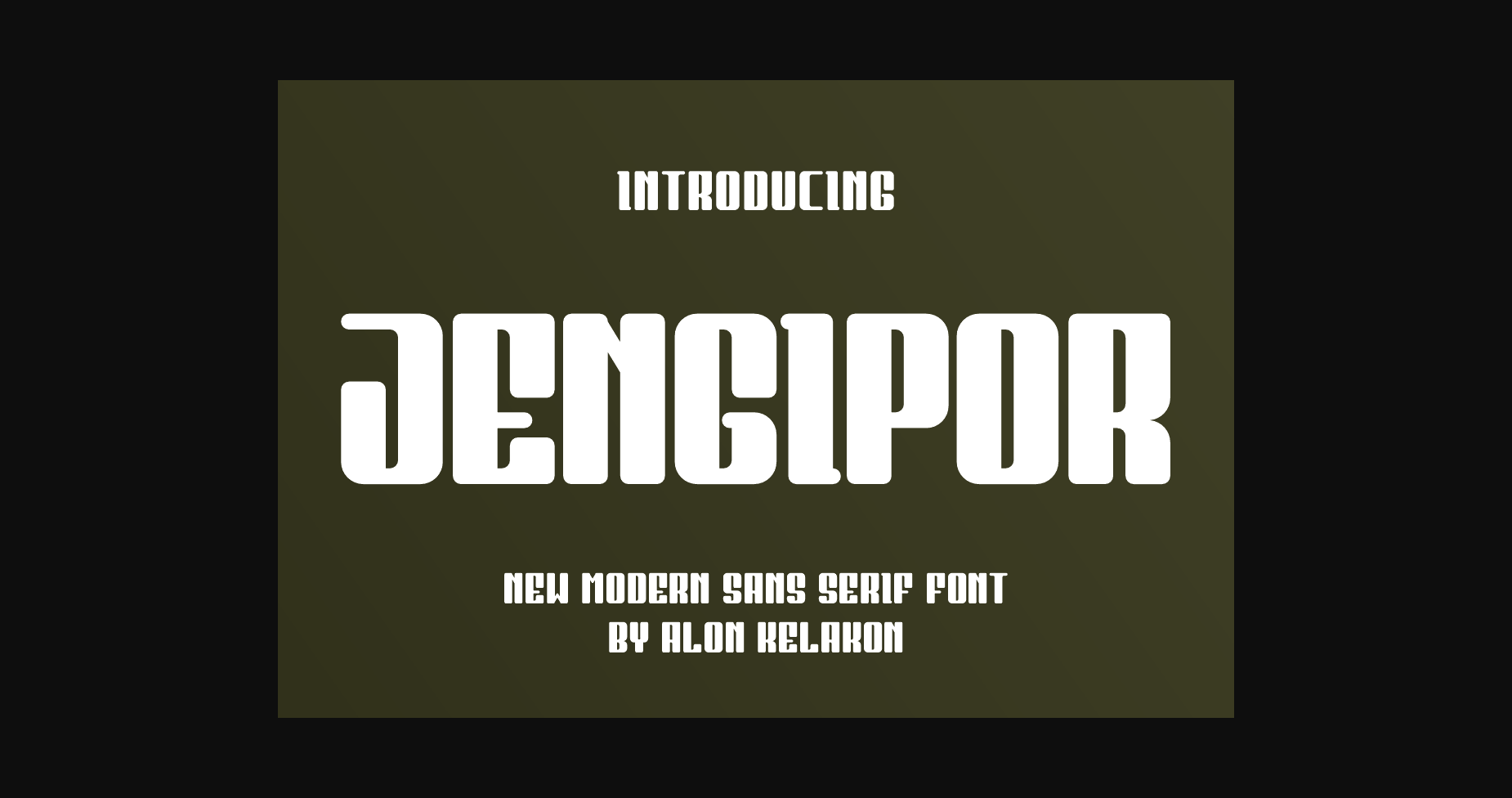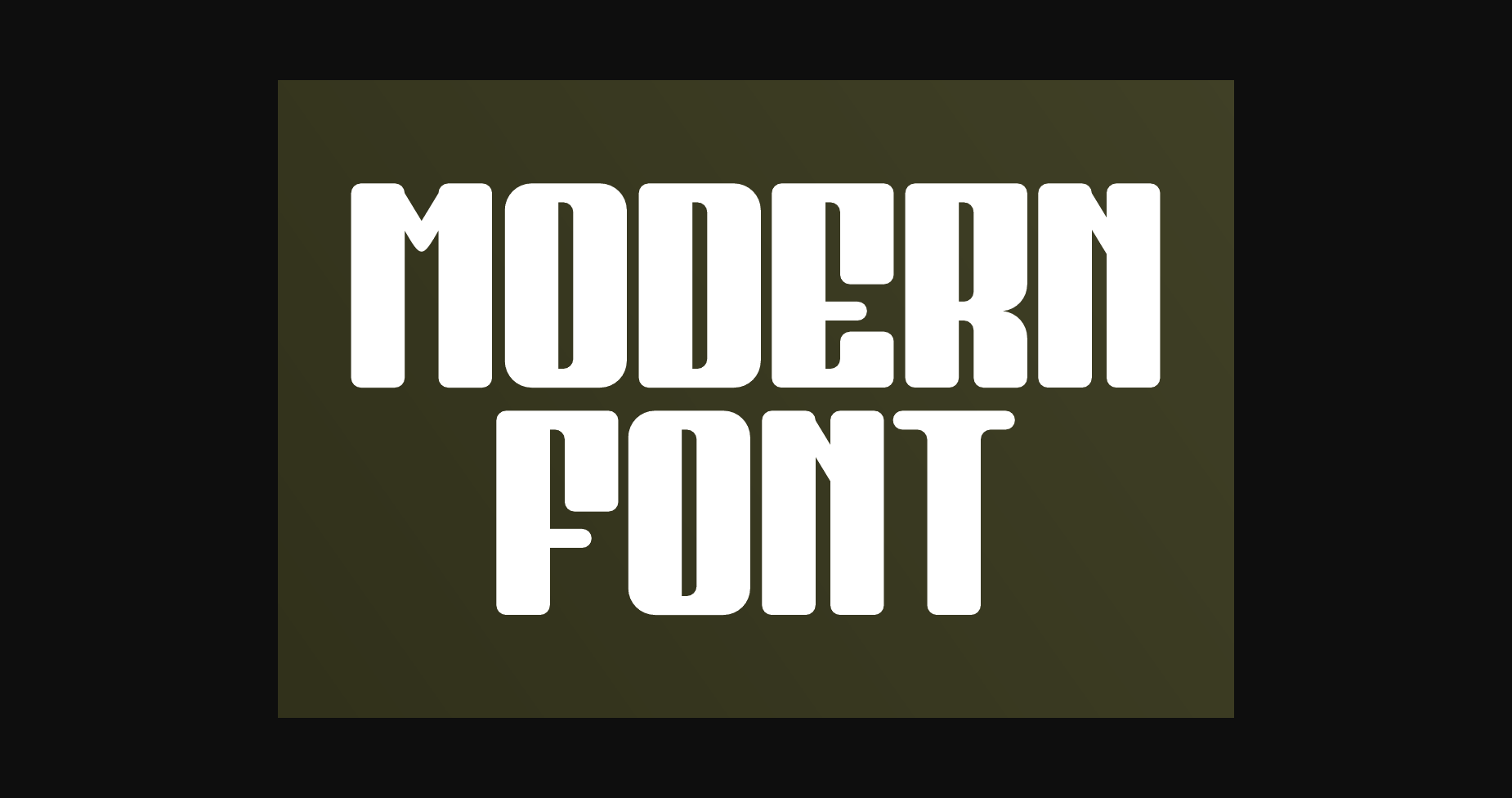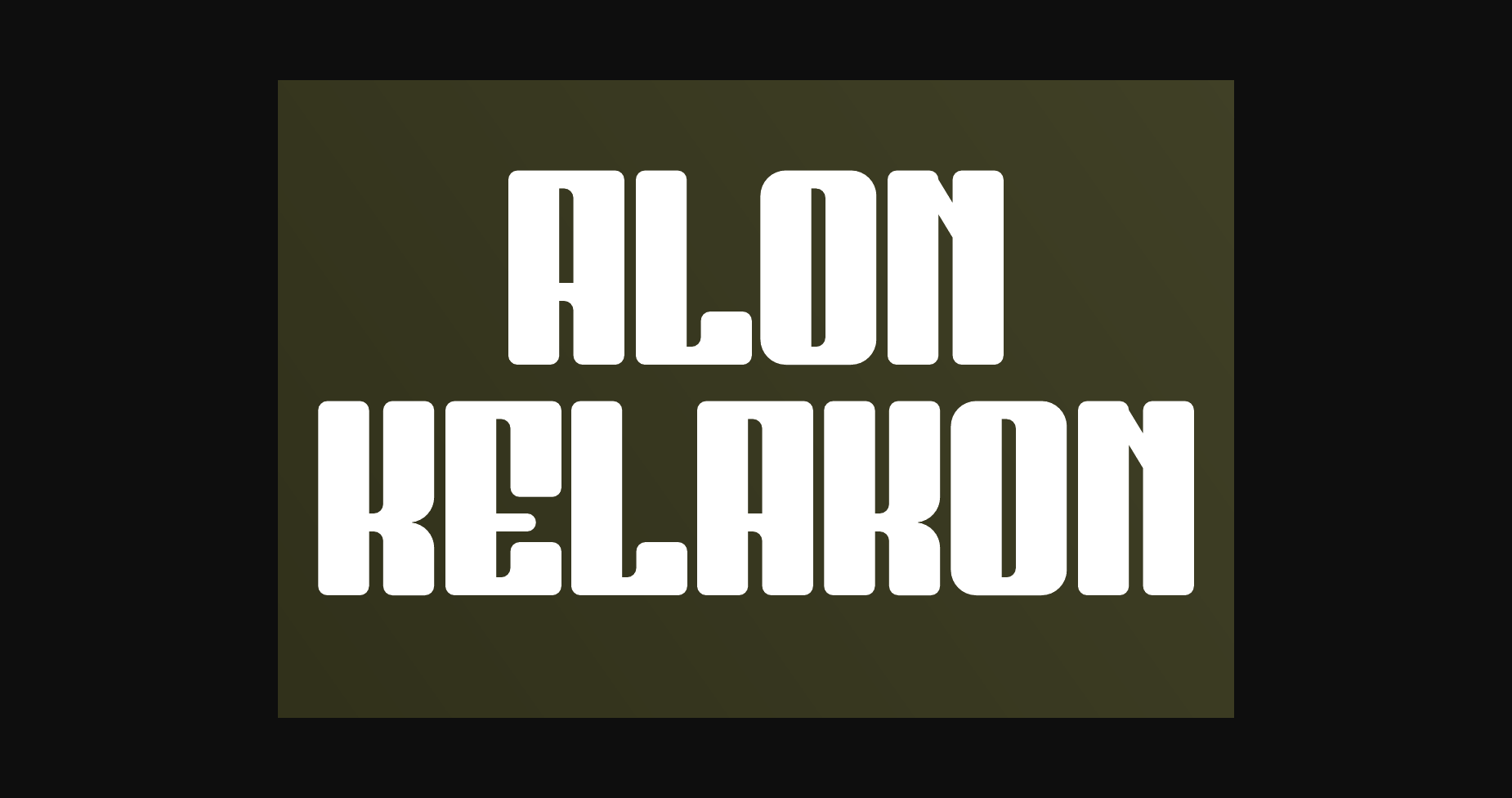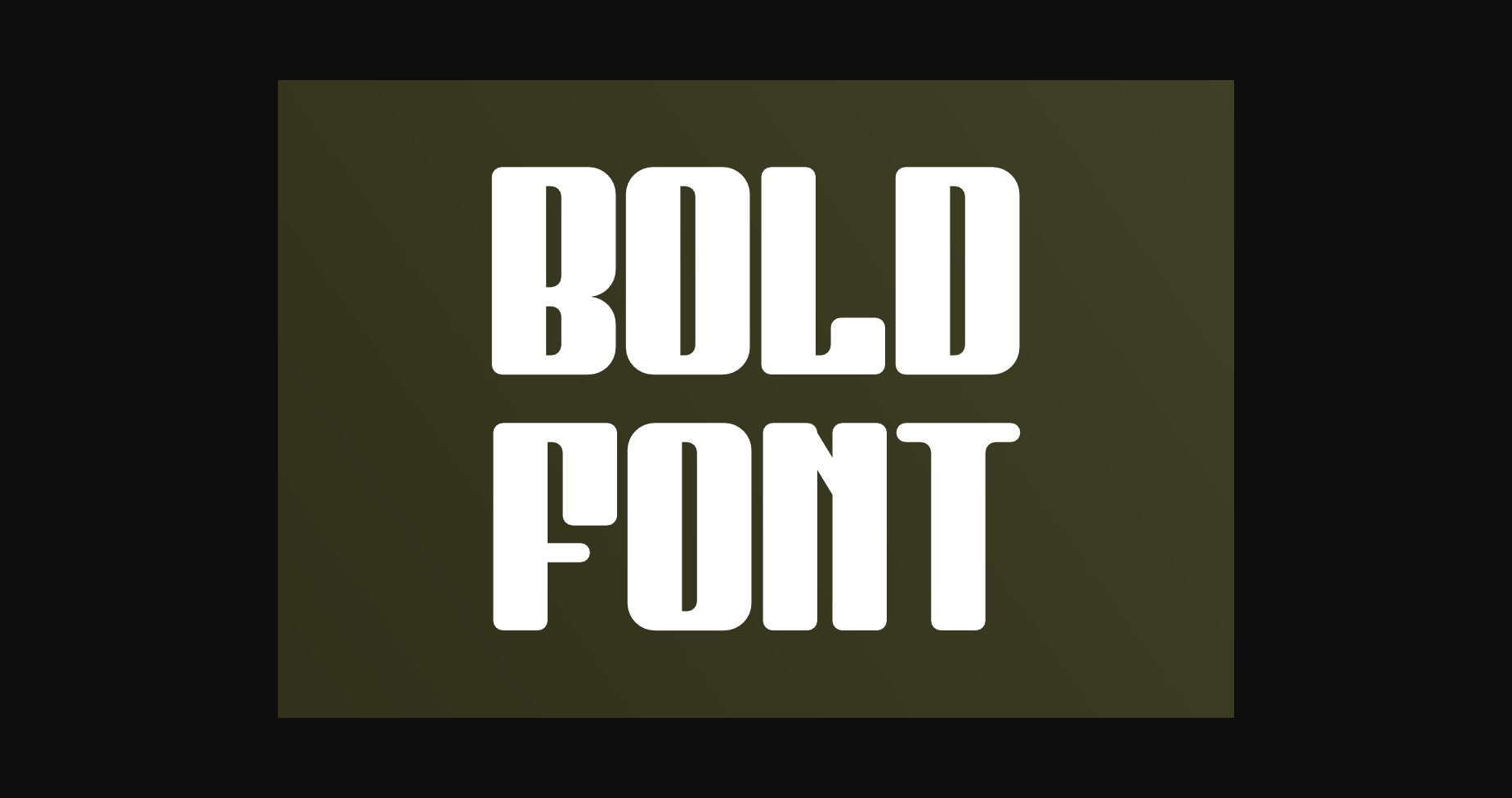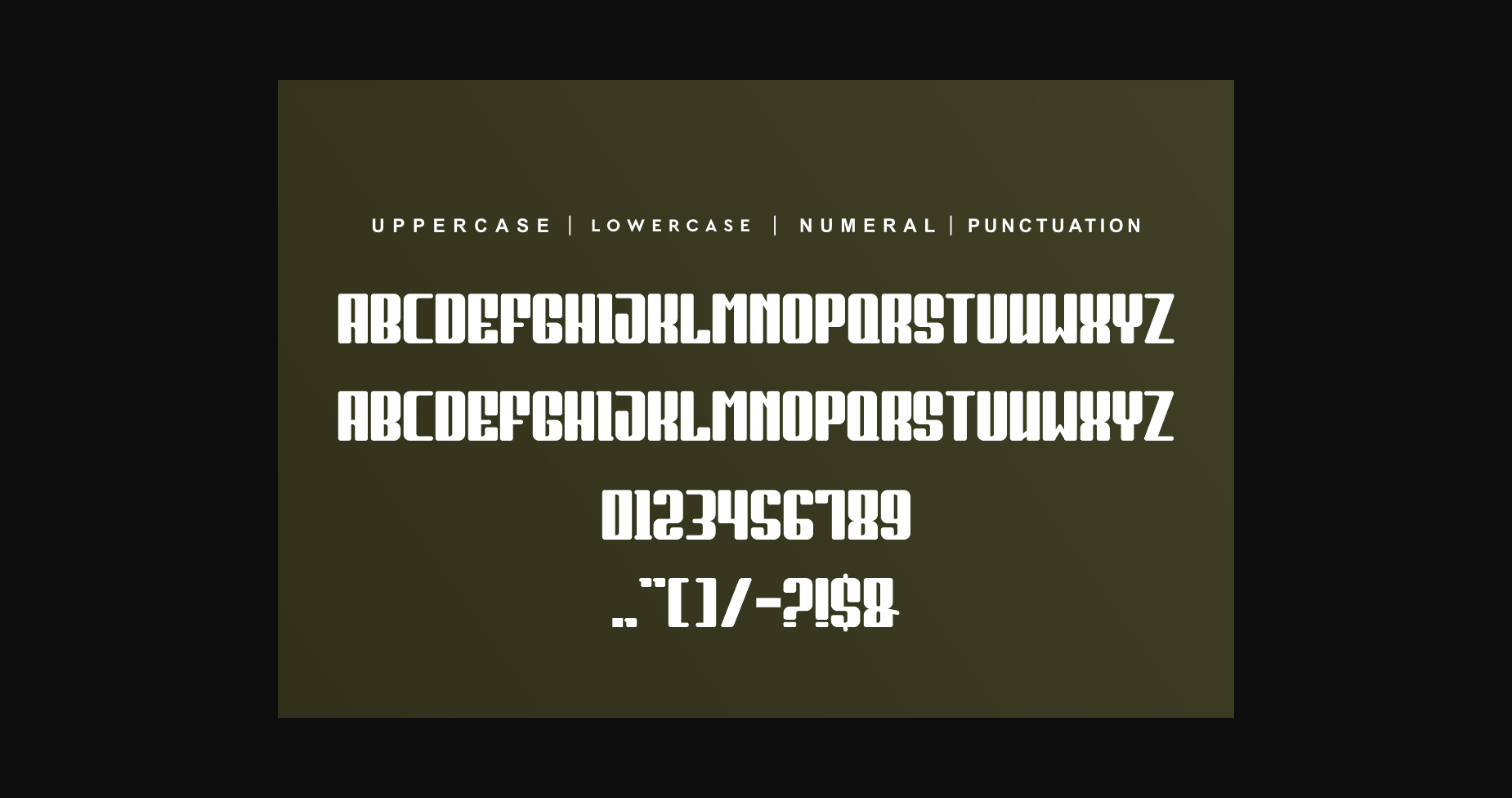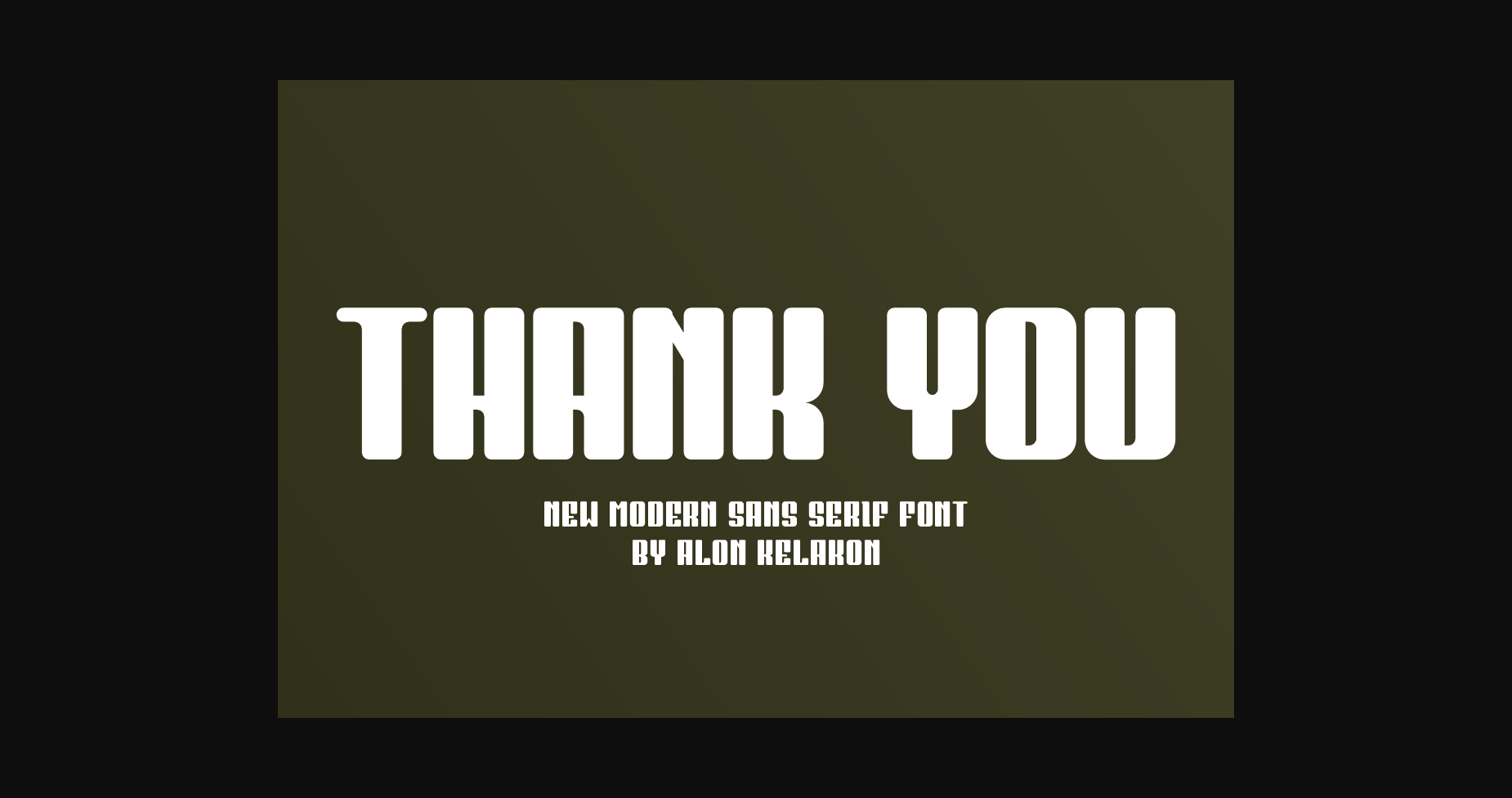
Jengipor Font
About Jengipor Font
Jengipor is a modern, sans serif display font. It is perfect for use on projects like labeling, clothing, movie screens, posters, album covers, logos, and so much more.